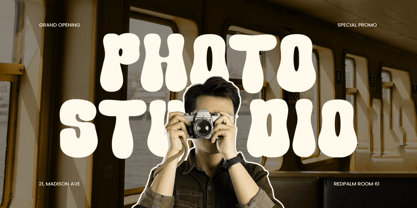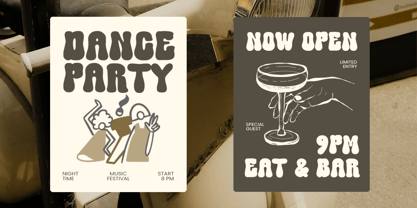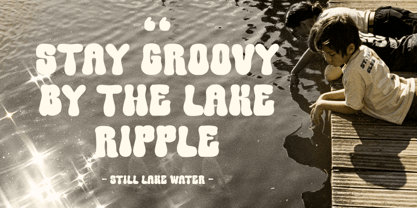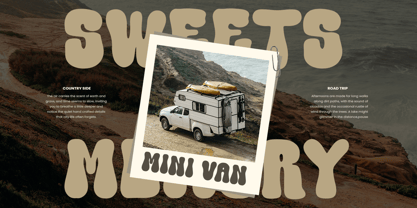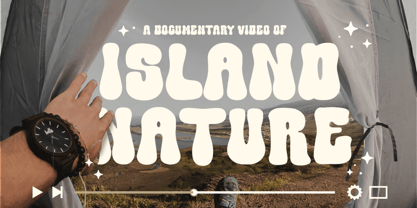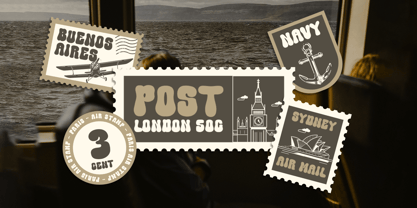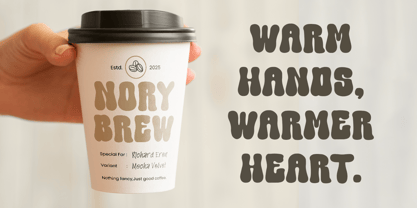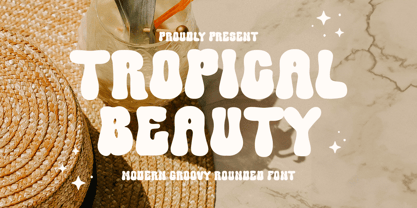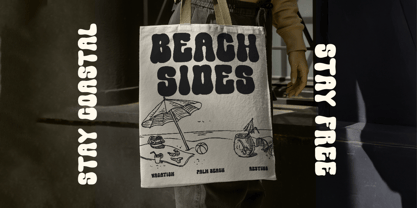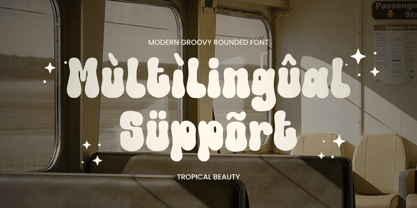
TROPICAL BEAUTY is a modern groovy rounded font designed to radiate warmth, happiness, and playful retro energy. With soft rounded shapes, bouncy curves, and a lively rhythm, this typeface brings an instant feel-good vibe that’s perfect for bright, expressive typography.
Ideal for summer branding, product packaging, posters, cafe menus, beach-themed designs, social media content, and cheerful headlines, TROPICAL BEAUTY helps your visuals stand out with friendly personality. Its rounded groovy style works beautifully for logos, stickers, merchandise graphics, signage, and colorful promotional layouts in both print and digital formats.
Whether you’re building a fun lifestyle brand, launching a tropical product line, or creating retro-inspired campaigns, TROPICAL BEAUTY delivers modern groovy charm with smooth readability and bold visual impact.
TROPICAL BEAUTY – Groovy Rounded Font Features
Modern groovy letterforms with soft rounded curves
Perfect for summer vibes, playful branding, and retro themes
Great for logos, packaging, posters, and bold headlines
Fun character for social media graphics, stickers, and merch
Includes uppercase, lowercase, numerals, and punctuation
Strong readability for both digital screens and print output
OpenType features for flexible creative typography
Multilingual Support Afrikaans, Albanian, Asu, Basque, Bemba, Bena, Breton, Chiga, Cornish, Dutch, English, Estonian, Filipino, Finnish, Friulian, Galician, German, Gusii, Indonesian, Irish, Italian, Kabuverdianu, Kalenjin, Kinyarwanda, Luo, Luxembourgish, Luyia, Machame, Makhuwa-Meetto, Makonde, Malagasy, Manx, Morisyen, North Ndebele, Nyankole, Oromo, Portuguese, Quechua, Romansh, Rombo, Rundi, Rwa, Samburu, Sango, Sangu, Scottish Gaelic, Sena, Shambala, Shona, Soga, Somali, Spanish, Swahili, Swedish, Swiss, and more.